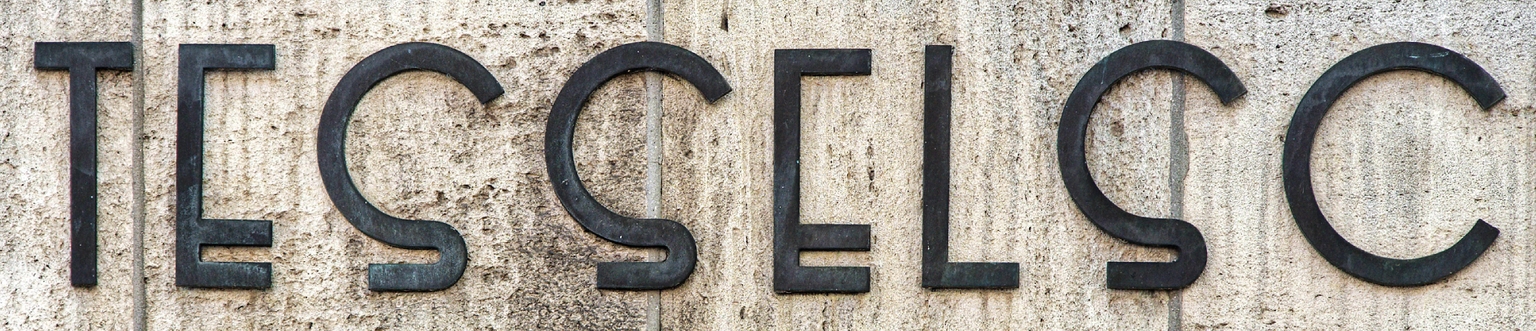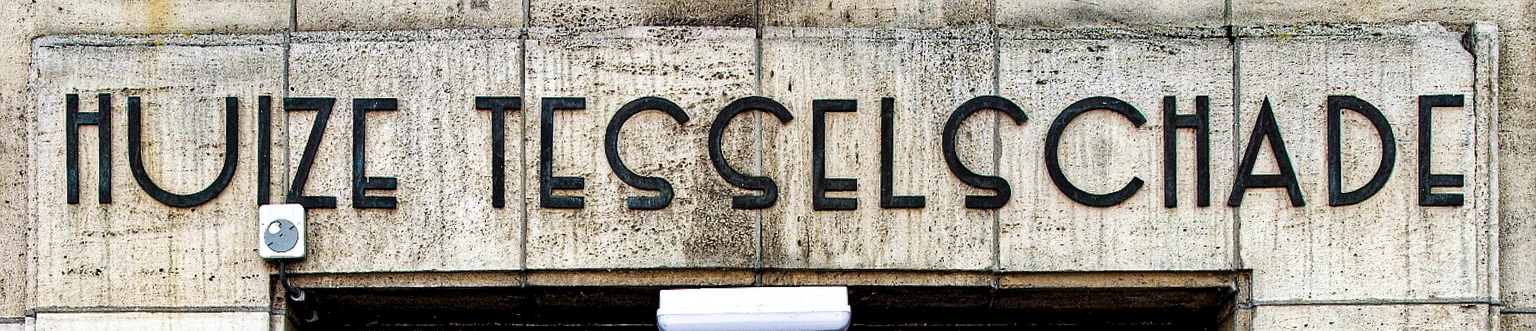
Huize
Huize is a Deco-style display typeface designed by Ramiro Espinoza and based on the lettering found on the façade of the Huize Tesselschade housing complex at Stadionweg 61–63 in Amsterdam. The building was designed by architect Co Franswa, who may also have created the lettering. These simple, well-balanced letterforms fit naturally within the architectural composition and reflect the clean geometry and experimental typographic spirit characteristic of interwar Dutch architecture.
Espinoza digitized and refined these forms, adjusting proportions and expanding the character set to create a functional and versatile typeface. Huize retains the architectural charm of its source while adapting it for contemporary design use. It works well in logos, posters, signage, cosmetics packaging and advertising, websites, and editorial projects that call for a clear, structured aesthetic with strong Deco influences.